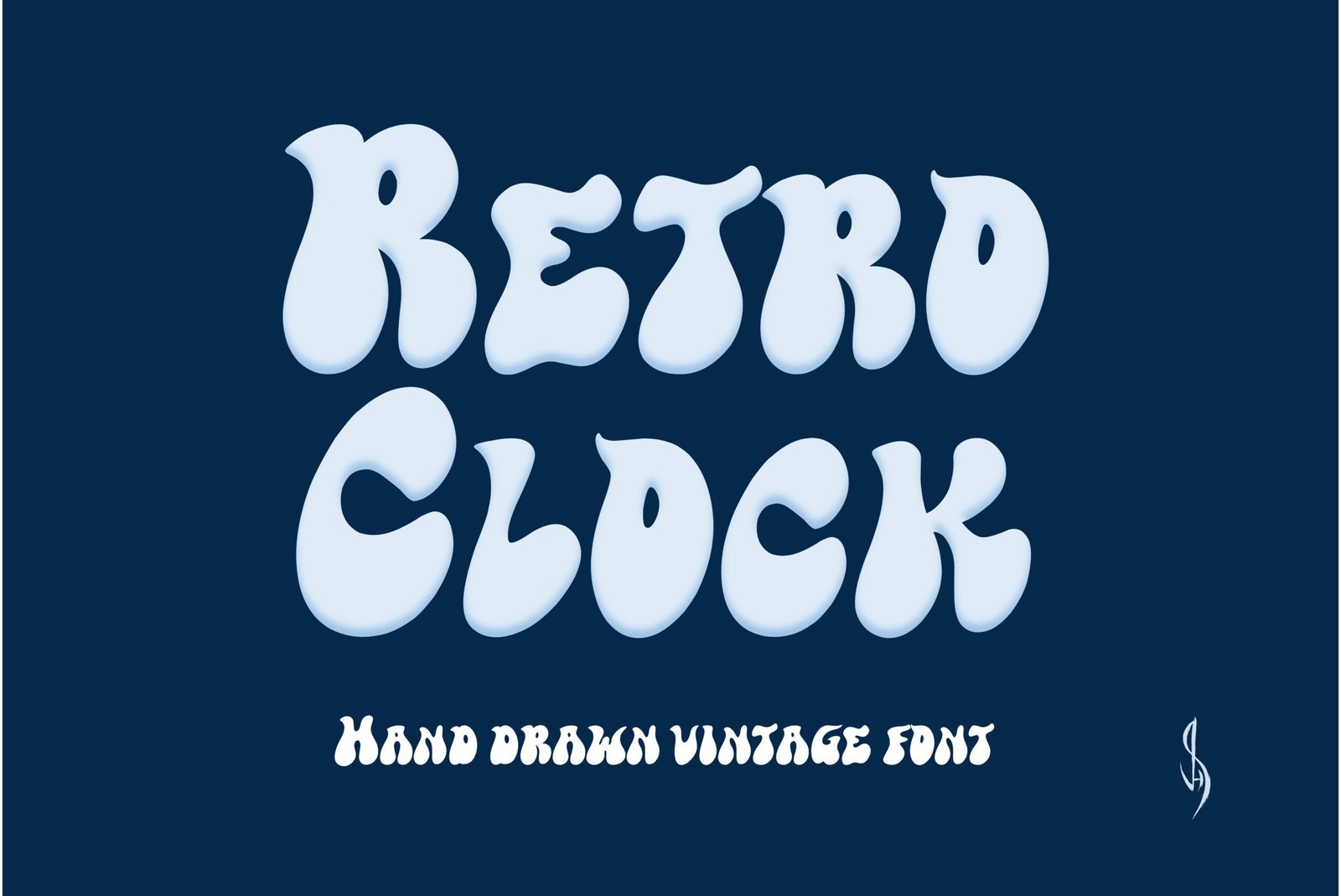
Retro Clock Font
Cool groovy font. “Retro Clock” Perfect for advertising and display purposes, including banners, book covers, shirts, posters, logos and much more!
This is an ALL CAPS font.